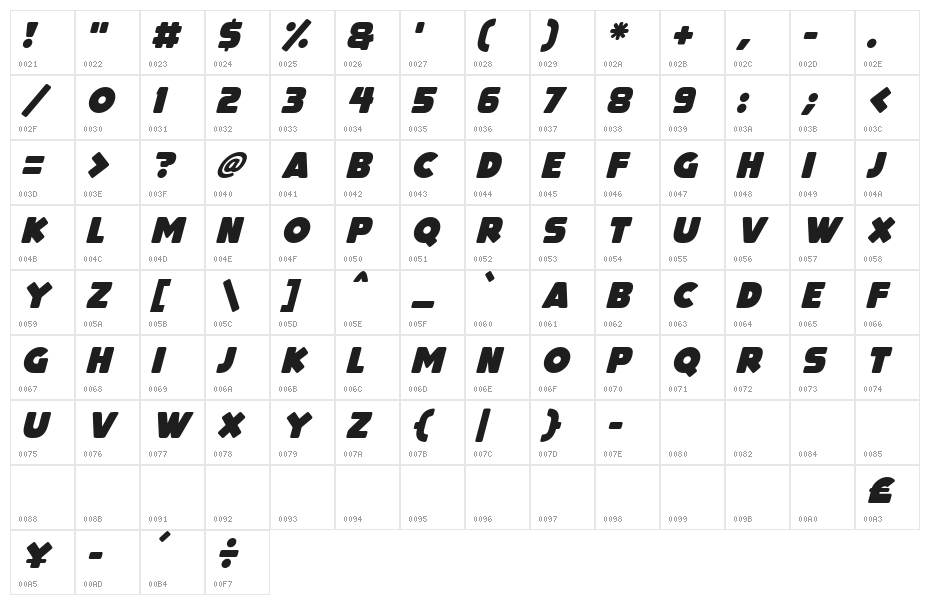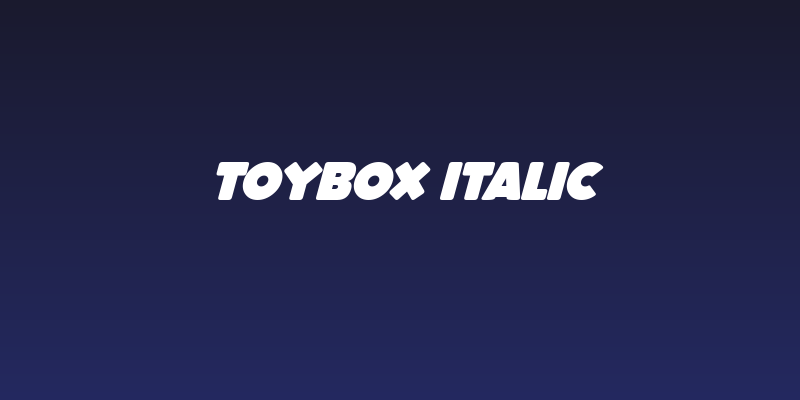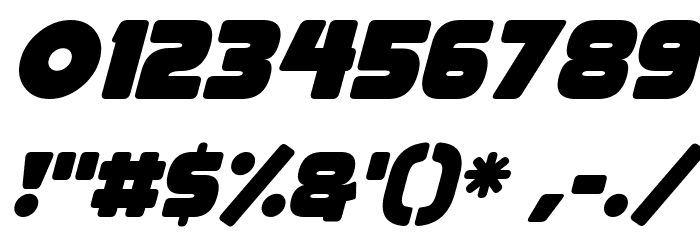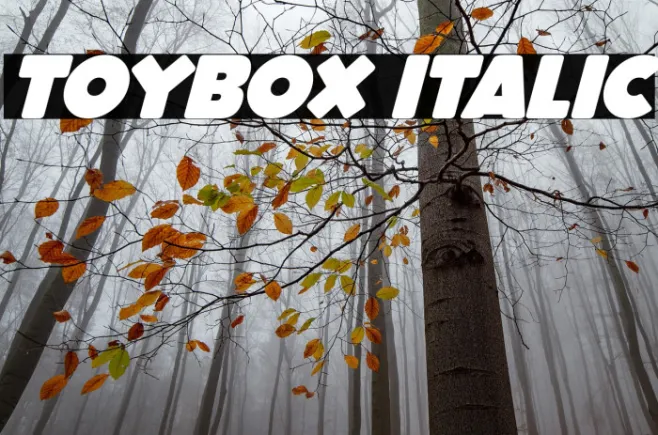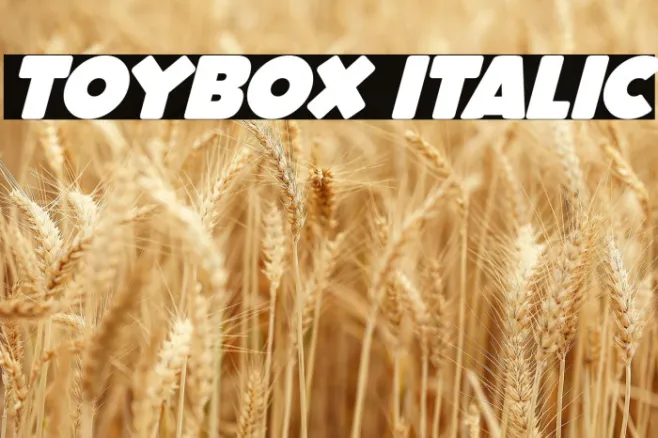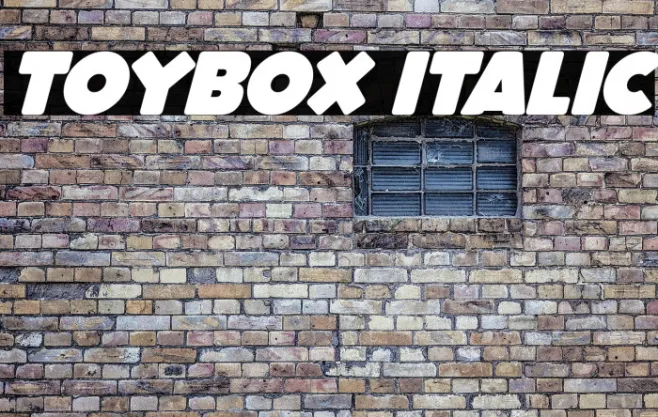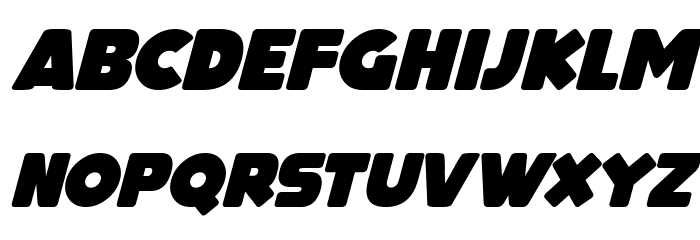
ToyBox Italic Font
ToyBox Italic Description
This playful and bold font features a distinctive italic style with thick, rounded strokes that convey a sense of fun and energy. The characters are slightly slanted, adding a dynamic feel to the overall design. The font includes a full set of uppercase and lowercase letters, numbers, and a variety of special characters, making it versatile for different uses. The bold weight and wide character spacing enhance its readability, while the smooth curves and lack of sharp edges give it a friendly and approachable appearance. Ideal for projects that require a lively and engaging typeface.
| Overall Style | Playful, Energetic |
| Proposed Projects | Ideal for children's books, toy packaging, playful branding, and event posters. |